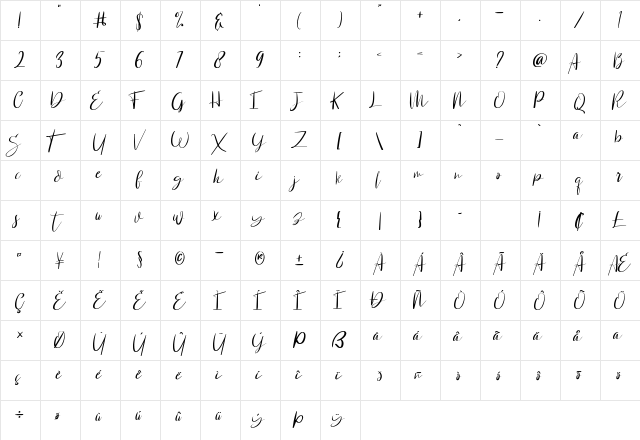
Shanti Creny Regular
| Designer | Stringlabs. 2020 |
Design Context for Shanti Creny Typeface
Shanti Creny is a composed and adaptable typeface that performs quietly and consistently across a wide range of design contexts.